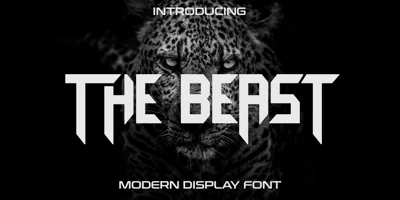
The Beast Font
The Beast Font is perfect for horror movie posters, extreme sports branding, heavy metal band logos, monster truck advertisements, intense gaming interfaces, aggressive fitness campaigns, powerful automotive marketing, beast mode athletic wear, savage competition promotions, primal energy drink branding, raw power equipment, and ferocious lifestyle brand communications.
This font is exciting because it unleashes the raw, untamed power and primal intensity that lurks within the deepest corners of human nature and the wildest forces of the natural world, featuring brutally bold letterforms that roar with the same unstoppable ferocity and savage strength that defines apex predators, natural disasters, and the kind of unleashed power that cannot be contained or controlled by conventional limits. The aggressive character design captures both the terrifying beauty of wild beasts and the awe-inspiring force of nature's most powerful phenomena, creating typography that commands respect through pure intimidation and undeniable dominance. Each letter radiates the kind of primal energy and raw strength that transforms ordinary text into roaring declarations of absolute power.
The The Beast Font family includes regular and ultra-bold weights with complete character sets featuring savage numerals, ferocious punctuation marks, and decorative elements inspired by claw marks, fangs, primal symbols, and unleashed natural forces. Advanced versions may offer additional stylistic variants with enhanced aggressive effects, alternate characters that simulate battle damage, and beast-themed ornaments that amplify the wild, untamed aesthetic and primal power appeal.
Whether you're developing extreme brand identities, creating intense entertainment content, or designing powerful marketing materials, The Beast Font delivers the savage intensity and primal dominance your project needs to tap into audiences' deepest instincts and command attention through pure raw power. This typeface transforms ordinary text into primal roars that awaken the beast within and celebrate the untamed forces that drive peak performance and ultimate achievement. The font's savage character makes it essential for brands that need to project maximum power, intensity, and primal appeal. Extreme sports enthusiasts and power-focused marketers will love how this font brings authentic beast-like intensity to their work with its genuinely savage and primally powerful character that dominates through pure force.